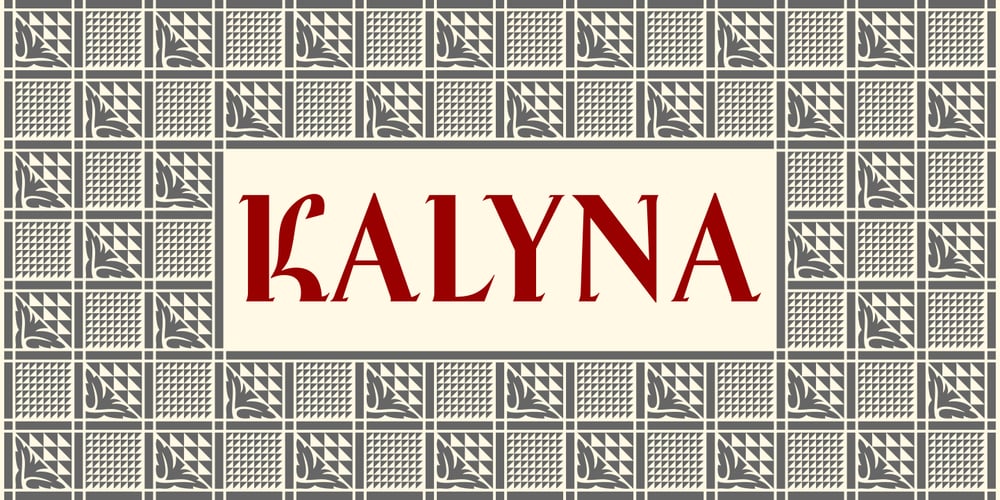
Kalyna
Kalyna font
Kalyna Font Family was designed by Lukyan Turetskyy, Alexandra Alexandrova and published by 2D Typo. Kalyna contains 2 styles and family package options. The Kalyna font is interesting with its stylistic implementation through asymmetrical serif. Such design is characteristic for the Ukrainian style. The drawing of the font is based on the sketches of a famous Ukrainian graphic artist of early 20th century Heorhiy Narbut. His work set the whole school in the Ukrainian graphic art and is still very influential nowadays. The font is capital and also includes a set of ornaments in addition the standard set of symbols.